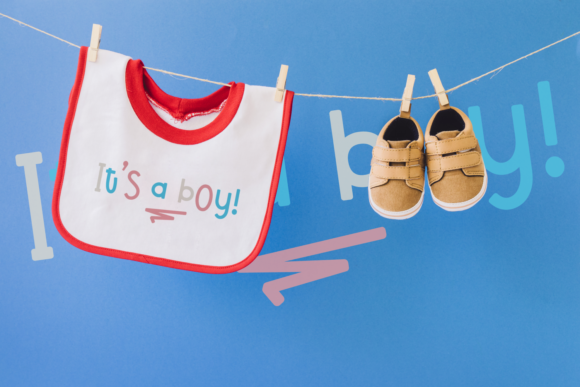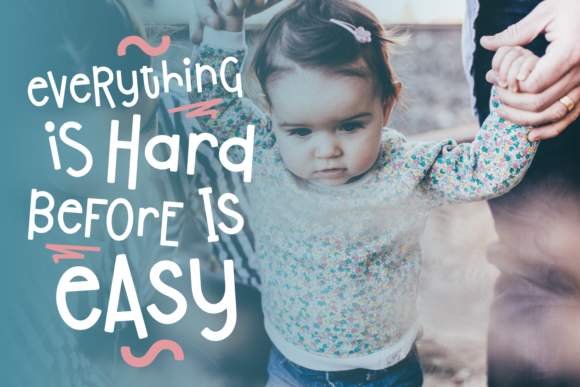
The Childrow Font
db-ku.com - Script & Handwritten -- Whimsical, charming and incredibly cute: The Childrow is the perfect font for any child-friendly and kids-themed crafting project!